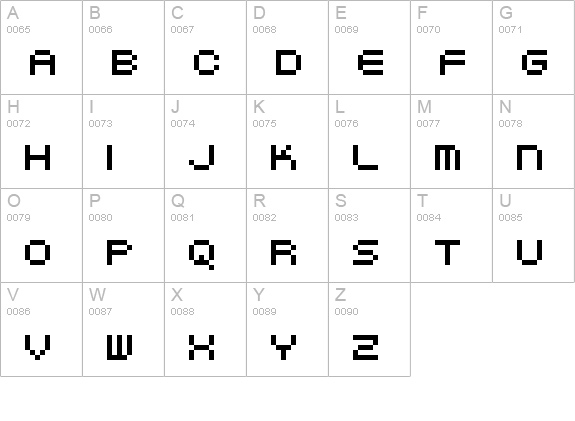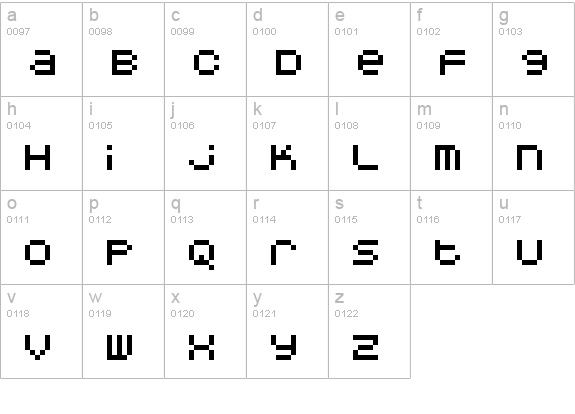
DoubleOhOne Font Details
DoubleOhOne font is a modern and stylish typeface that exudes elegance and sophistication. With its sleek lines and sharp edges, this font is perfect for creating eye-catching designs that demand attention. DoubleOhOne is versatile and can be used for a variety of projects, from branding to editorial design. The best part about DoubleOhOne font is that it is available for free! You can easily download this font at FontsMarket.com and start using it in your projects right away. Don't miss out on the opportunity to add this beautiful font to your collection and elevate your designs to the next level.